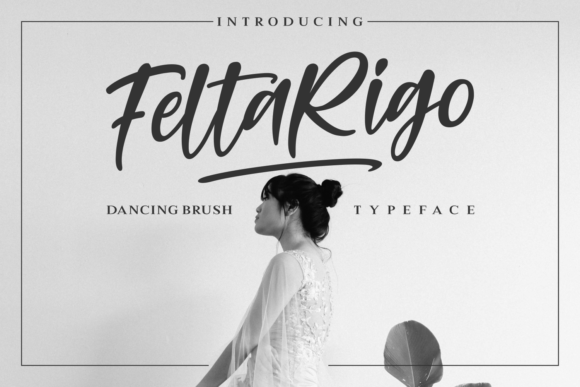
The Perfect Brush Script for Your Next Design Project
Have you ever been working on a design project, and suddenly you stumble upon the perfect font that captures the essence of your creative vision? For designers, this moment is pure magic, and it’s what makes all the late nights and early mornings worth it. For me, this moment came when I discovered the Feltarigo Font – a beautiful, dancing brush script that adds a personal touch to any design.
Feltarigo Font is more than just a font; it’s an extension of your creative self. With its nicely curved lines and attention to detail, it’s the perfect addition to any project that needs a little extra love. Whether you’re designing a logo, a wedding invitation, or a social media campaign, Feltarigo Font is sure to elevate your design and make it stand out from the crowd.
Feltarigo Font Key Features
- Font Family: Feltarigo is a unique display font designed for headings and titles.
- Unique Characteristics: Feltarigo features an irregular, hand-drawn feel with unique letterforms and subtle texture, adding a touch of personality to any design.
Feltarigo Font Review
Feltarigo Font is a unique and eclectic typeface that has its own charm. ✨ I appreciate the quirky, handmade feel of this font, which adds a touch of personality to any design project. The letterforms are intricate and expressive, making it perfect for titles and headings where you want to draw attention.
- ✨ Beautiful, hand-drawn feel that sets it apart from other fonts
- ✨ Great for titles and headings where you want to add a touch of whimsy
- ✨ Suitable for creative projects, such as art books, magazines, and advertising
However, there are some limitations to consider. ⚠️ The font can be quite difficult to read in smaller sizes, and the irregular letterforms can make it challenging to set text at body copy sizes. Additionally, the font’s uniqueness can also be a drawback if you’re looking for a more neutral or timeless look.
- ⚠️ Difficult to read in smaller sizes
- ⚠️ Irregular letterforms can make it challenging to set text at body copy sizes
- ⚠️ May not be suitable for projects where a neutral or timeless look is required
Overall, I think Feltarigo Font is a great choice for designers who want to add a touch of personality to their projects. While it may have some limitations, its unique charm and beauty make it a valuable addition to any design library.
Feltarigo Font is perfect for:
- Creating eye-catching headings and titles.
- Adding a touch of elegance to presentations and documents.
Alternatives to Feltarigo Font for Designers
Great Vibes is a modern, elegant script font suitable for use in logos, branding, and titles. It has a more refined and sophisticated look compared to Feltarigo Font. Great Vibes is ideal for designers who want to convey a sense of luxury and high-end quality.
Comparison: While Feltarigo Font has a more playful and quirky feel, Great Vibes Font is more polished and refined. Great Vibes is a better choice for designers who want to create a more professional and sophisticated look.
Carolyna Pro is a beautiful, modern script font that is perfect for use in branding, logos, and titles. It has a unique, hand-drawn feel that is reminiscent of Feltarigo Font, but with a more refined and sophisticated look. Carolyna Pro is ideal for designers who want to create a sense of elegance and sophistication.
Comparison: While both fonts have a similar feel, Carolyna Pro is more refined and polished compared to Feltarigo Font. Carolyna Pro is a better choice for designers who want to create a more high-end and luxurious look.